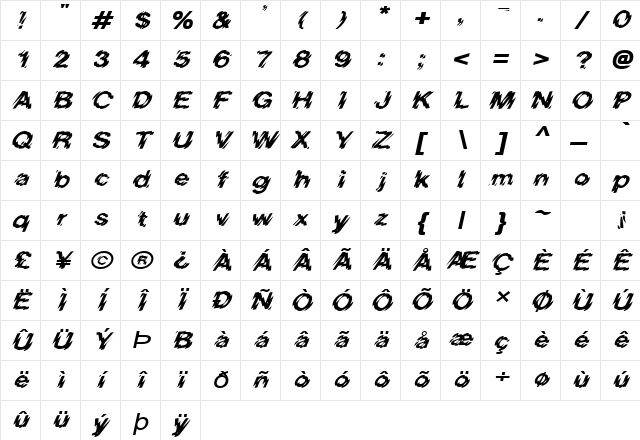
Blur-Extended Italic
Blur-Extended Family
Design Context for Blur-Extended
Blur-Extended is a composed and adaptable typeface that performs quietly and consistently across a wide range of design contexts. The slanted form adds forward momentum and visual energy.
Pro Tip: Use Blur-Extended for emphasis, pull quotes, and subheadings where its slanted energy can add rhythm to the layout.